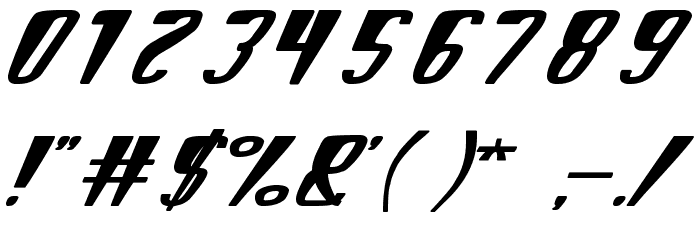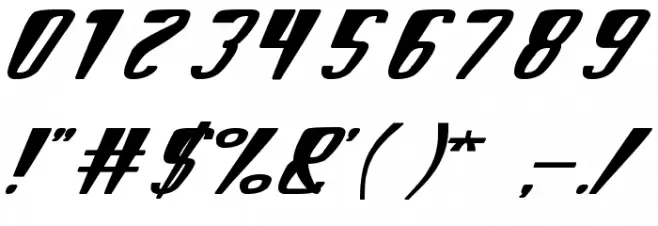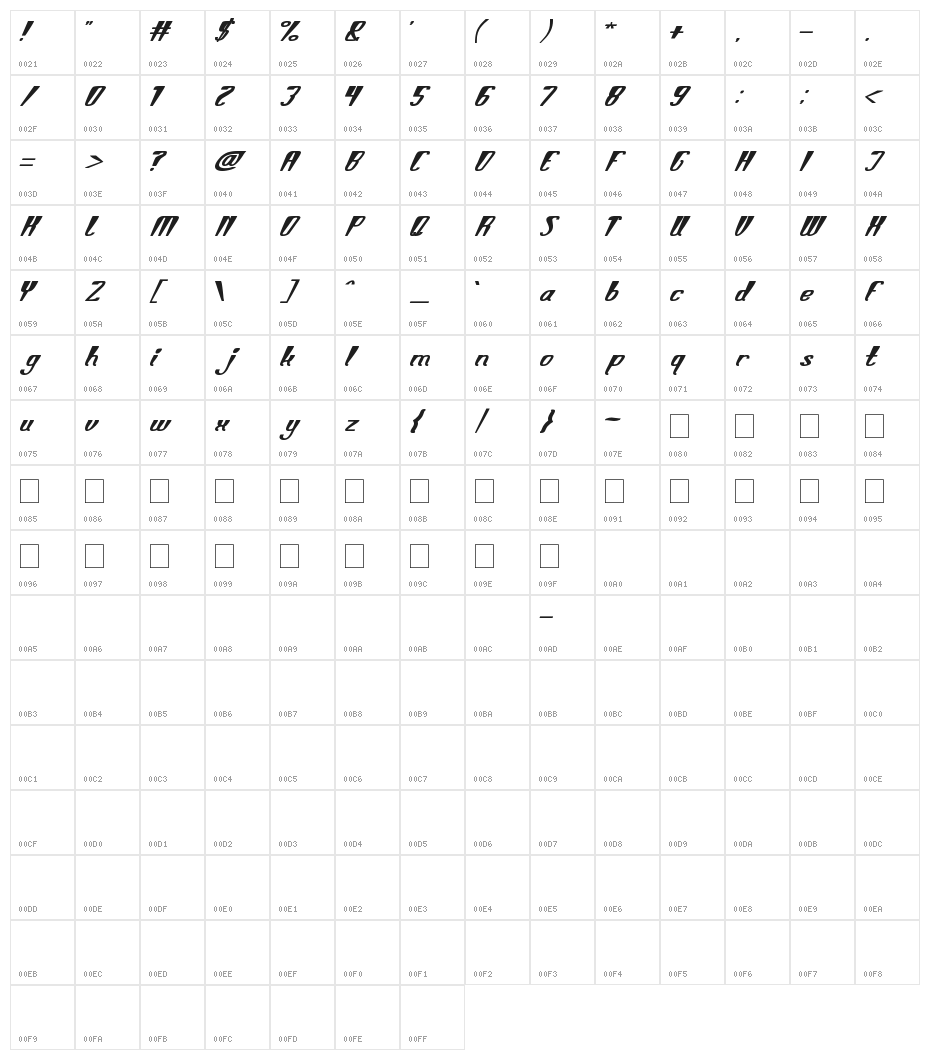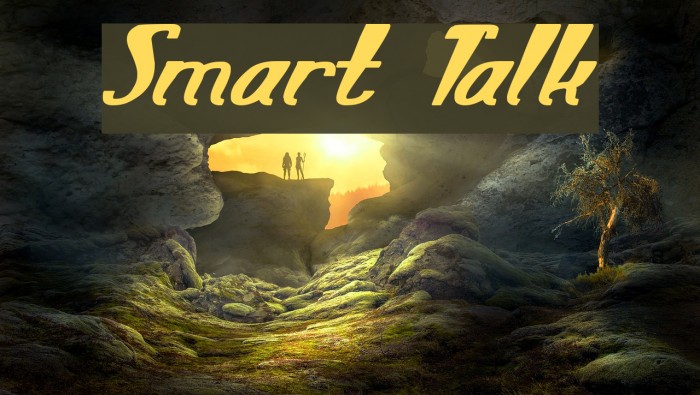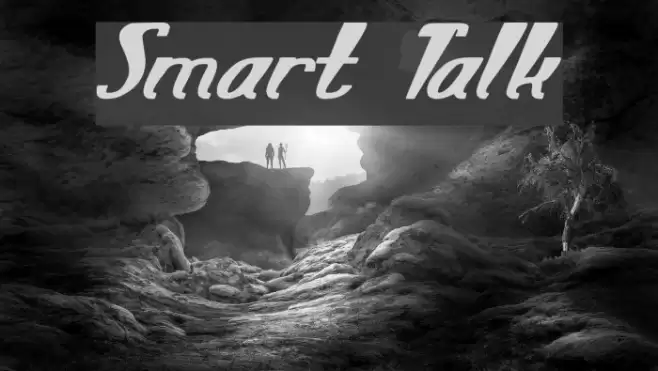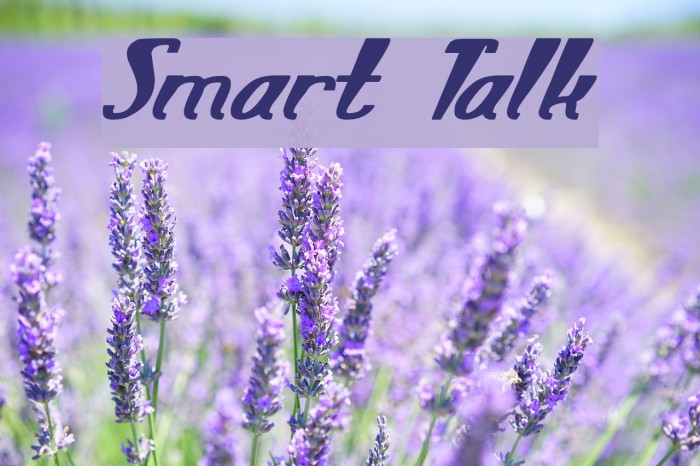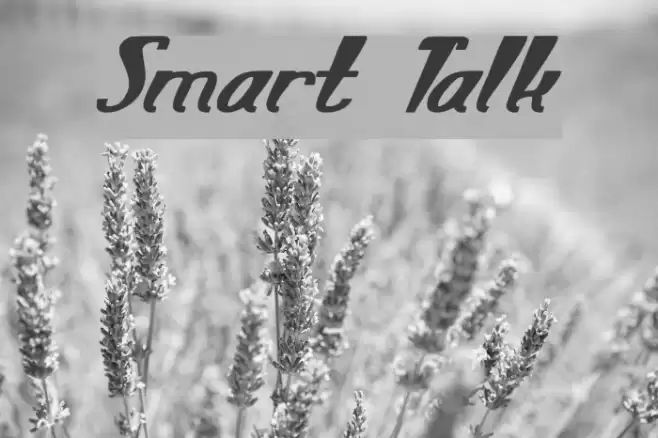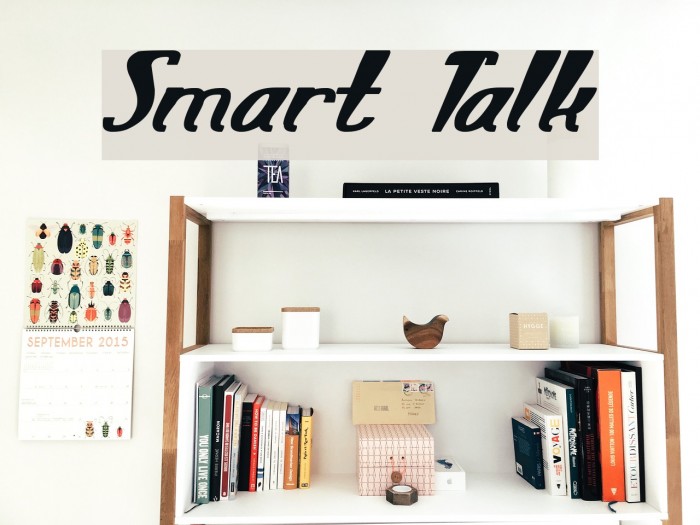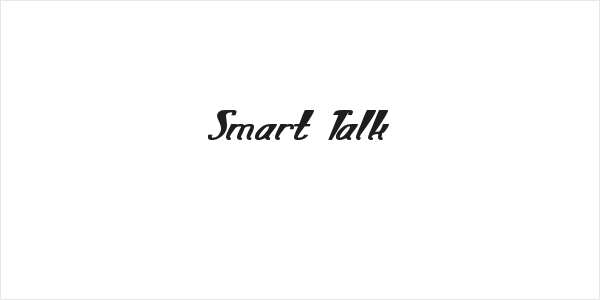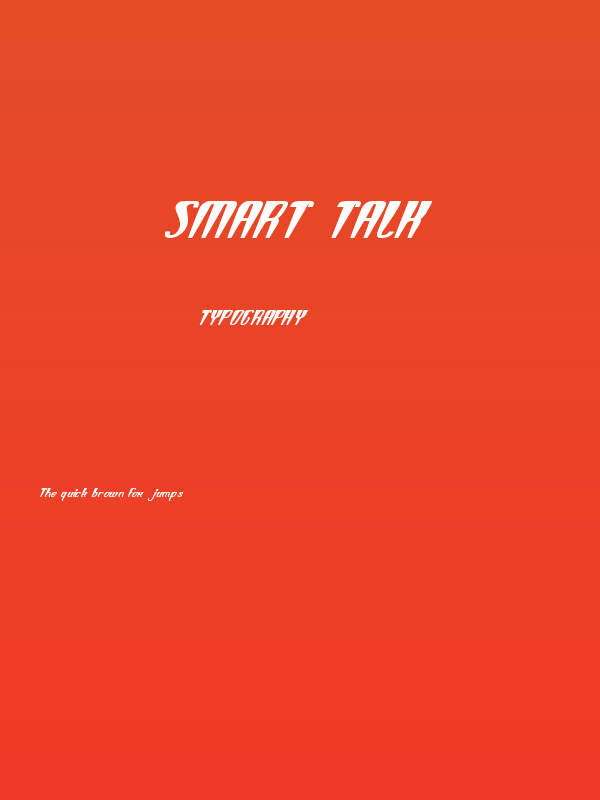
Smart Talk Font
Smart Talk Description
This font features a dynamic and energetic style with a slanted, italicized appearance that gives it a sense of motion and fluidity. The characters are bold and slightly condensed, with sharp angles and clean lines that create a modern and sleek look. The uppercase letters are particularly striking, with a strong presence that commands attention. The lowercase letters maintain the same energetic style, offering a cohesive and harmonious appearance. The numerals are distinct and easy to read, matching the overall aesthetic of the font. Special characters are included, maintaining the same bold and dynamic style.